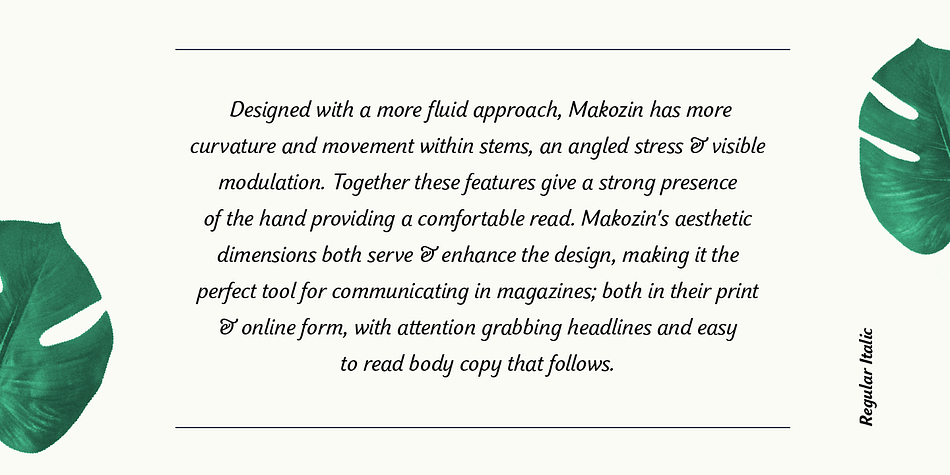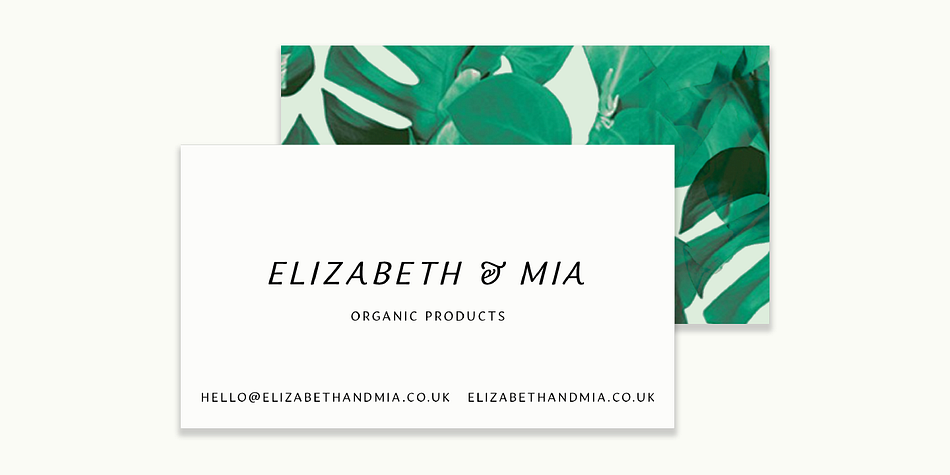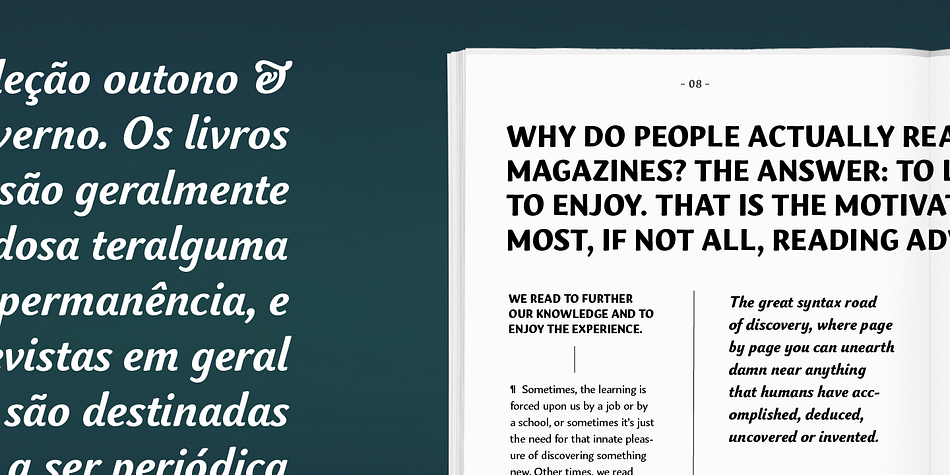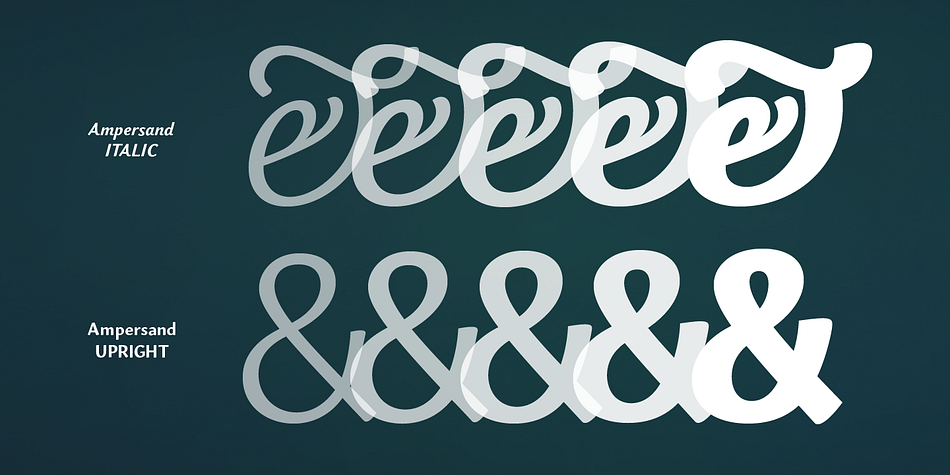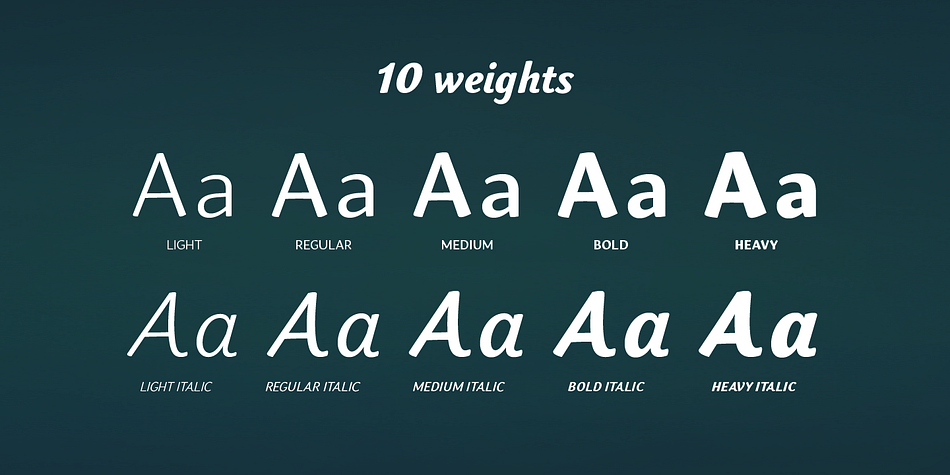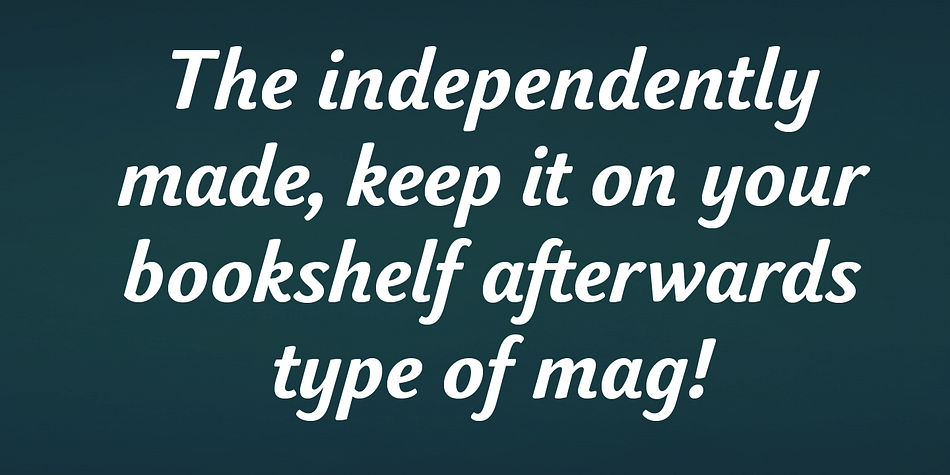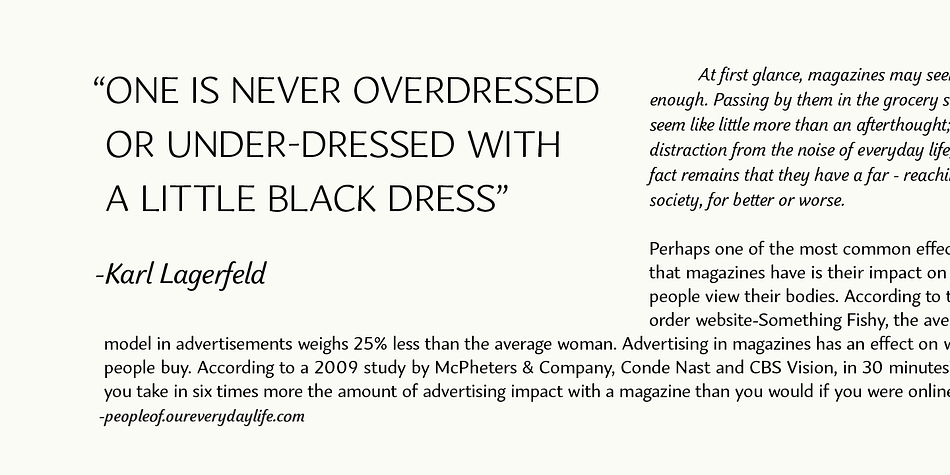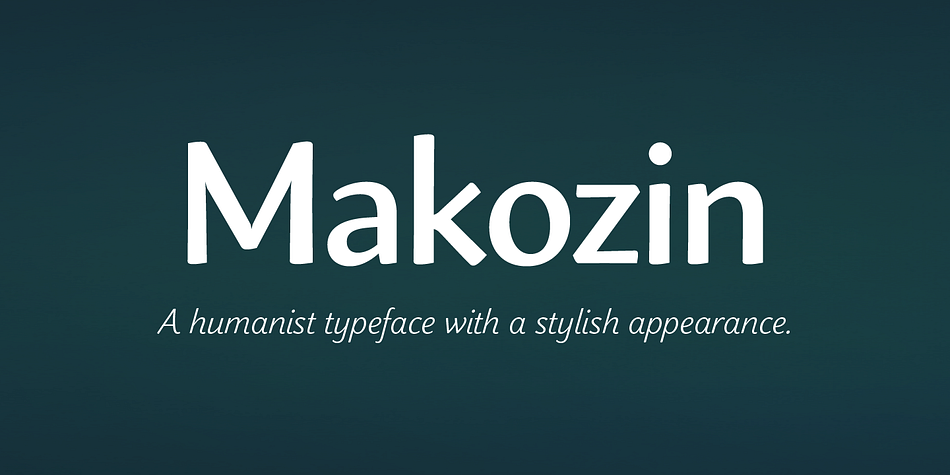
Designed by Rebecca Hurst, Makozin is a sans serif font family. This typeface has ten styles and was published by Hashtag Type.
Makozin is a humanist typeface with a stylish appearance. Designed with a more fluid approach, Makozin has more movement and curvature within stems, an angled stress and visible modulation. Together these features give a strong presence of the hand providing a comfortable read.
Makozin’s aesthetic dimensions both serve and enhance the design, making it the perfect tool for communicating in magazines; both in their print and online form, with attention grabbing headlines and easy to read body copy that follows. The true italics of this typeface are a real show stealer, they instantly create a sense of atmosphere, style and authority, complementing the uprights perfectly.
Full details include 10 weights including italics, manually edited kerning and a range of OpenType features.